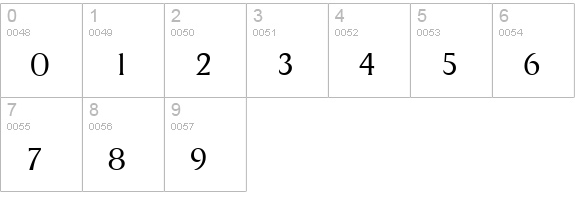
DragonSerial-Xlight-Regular is the standard, neutral variant in the DragonSerial typeface family \xE2\x80\x94 well suited to general body text, paragraphs, and standard typographic work.
DragonSerial-Xlight-Regular is a sleek and modern font that exudes elegance and sophistication. With its clean lines and smooth curves, this typeface is perfect for a wide range of design projects, from branding to editorial design. The light weight of the font adds a touch of delicacy and refinement to any text, making it perfect for conveying a sense of sophistication and style. Best of all, DragonSerial-Xlight-Regular is available for free download at FontsMarket.com. Whether you're a designer looking to add a fresh new font to your collection or a business owner in need of a stylish and professional typeface for your branding materials, DragonSerial-Xlight-Regular is the perfect choice. Download it today and elevate your designs with this stunning and versatile font.